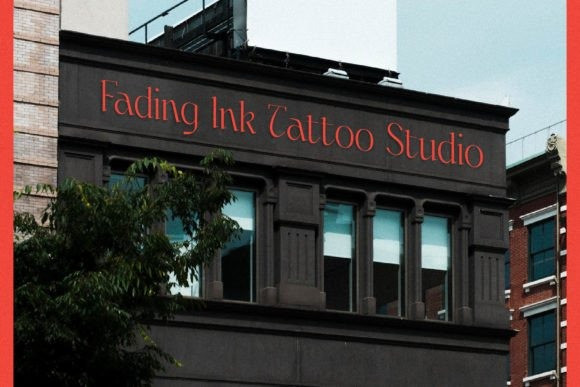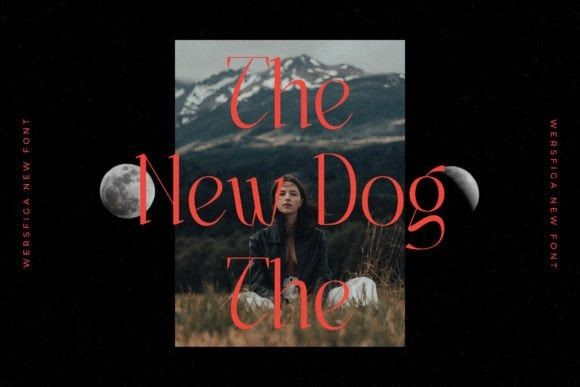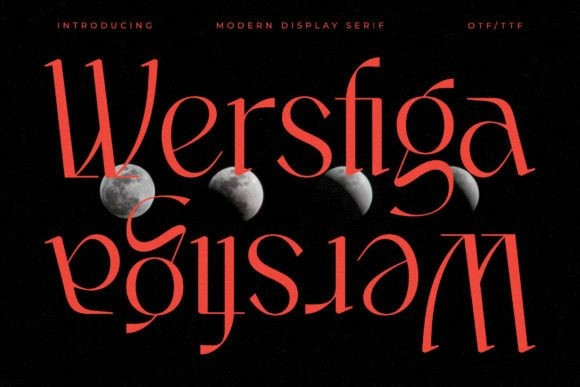
Wersfiga Font
Wersfiga Font is a modern and classic serif typeface that has its own unique style & modern look. This typeface is perfect for an elegant & luxurious logo, book or movie title design, fashion brand, magazine, clothes, lettering, quotes, and so much more.